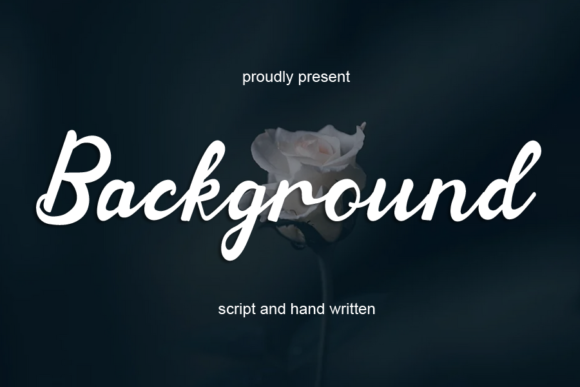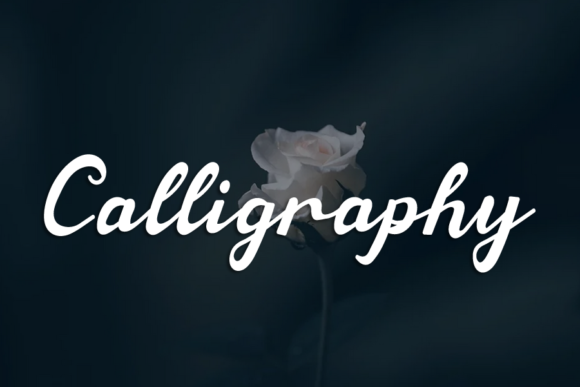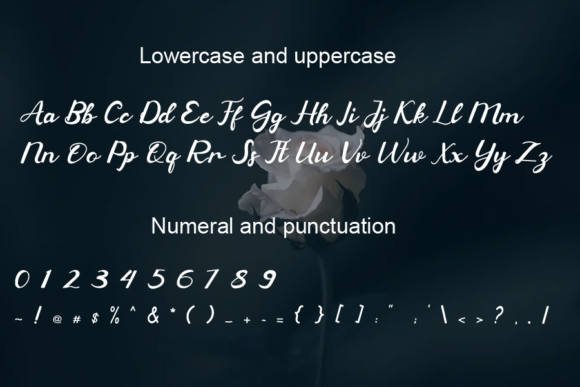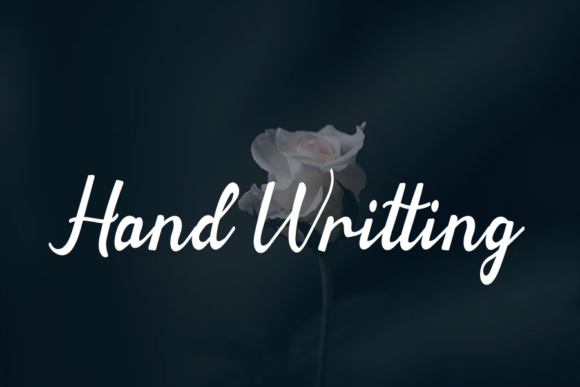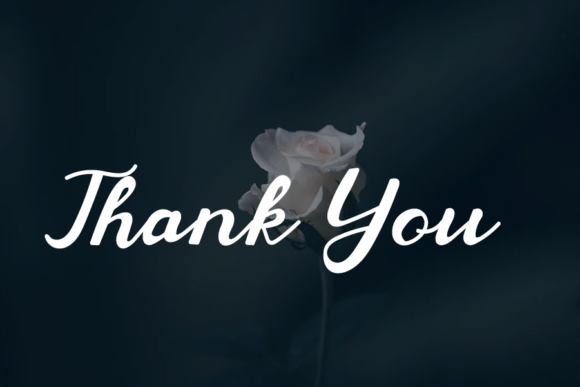
Background Font
About Background Font
Background is a delicate and elegant handwritten font. Its distinct and well-balanced letters make this font a masterpiece. Fall in love with its incredibly versatile style and use it to create spectacular designs!